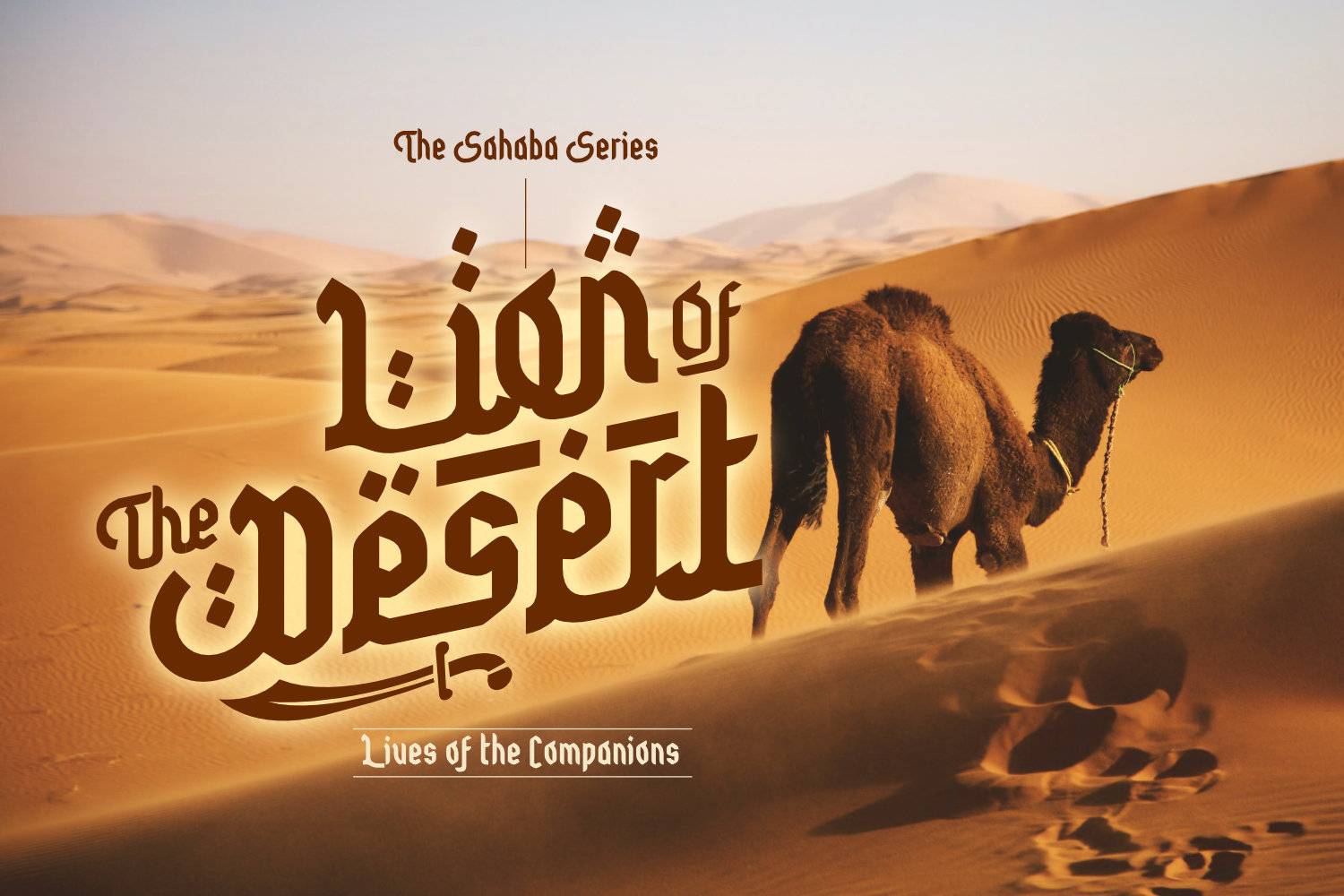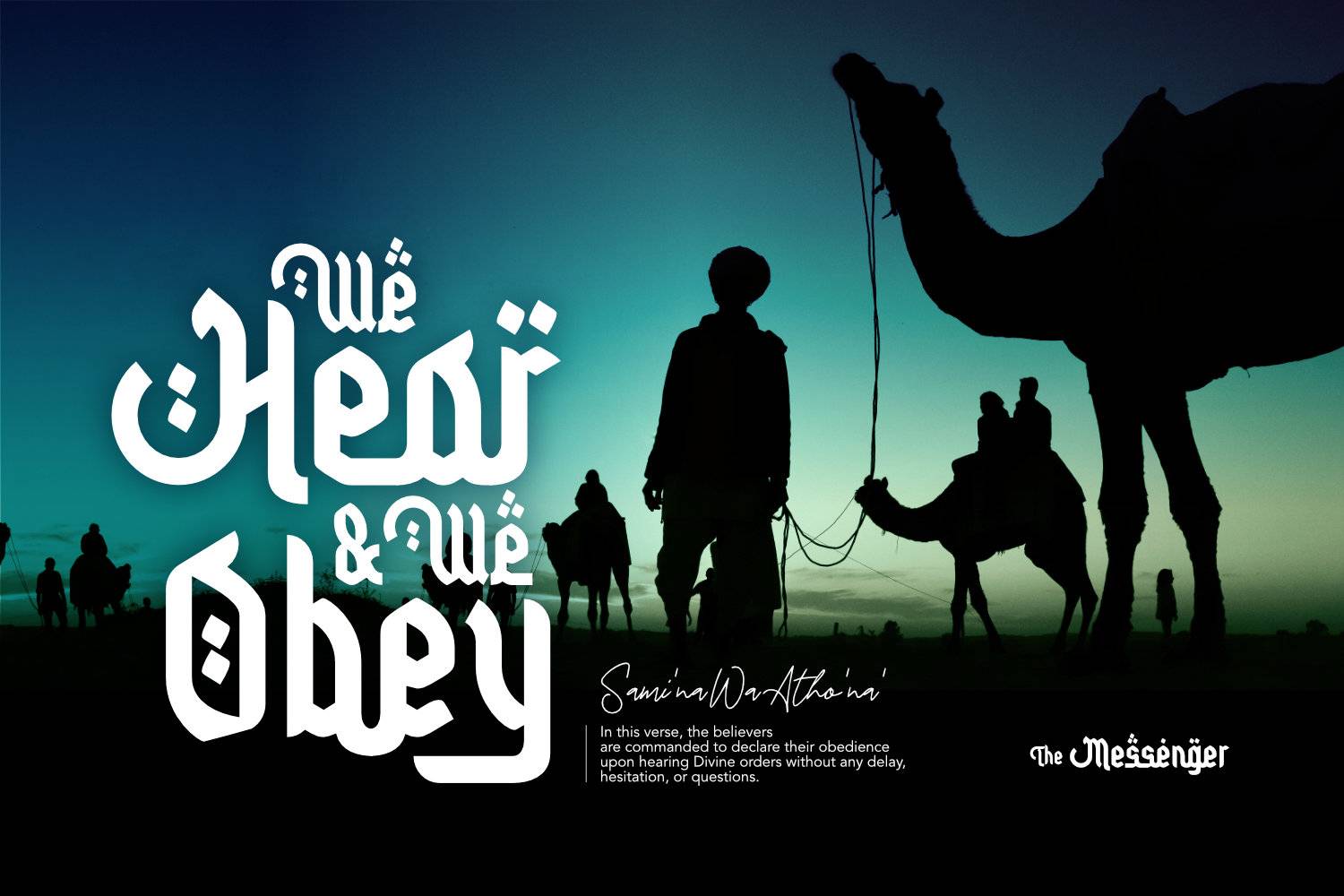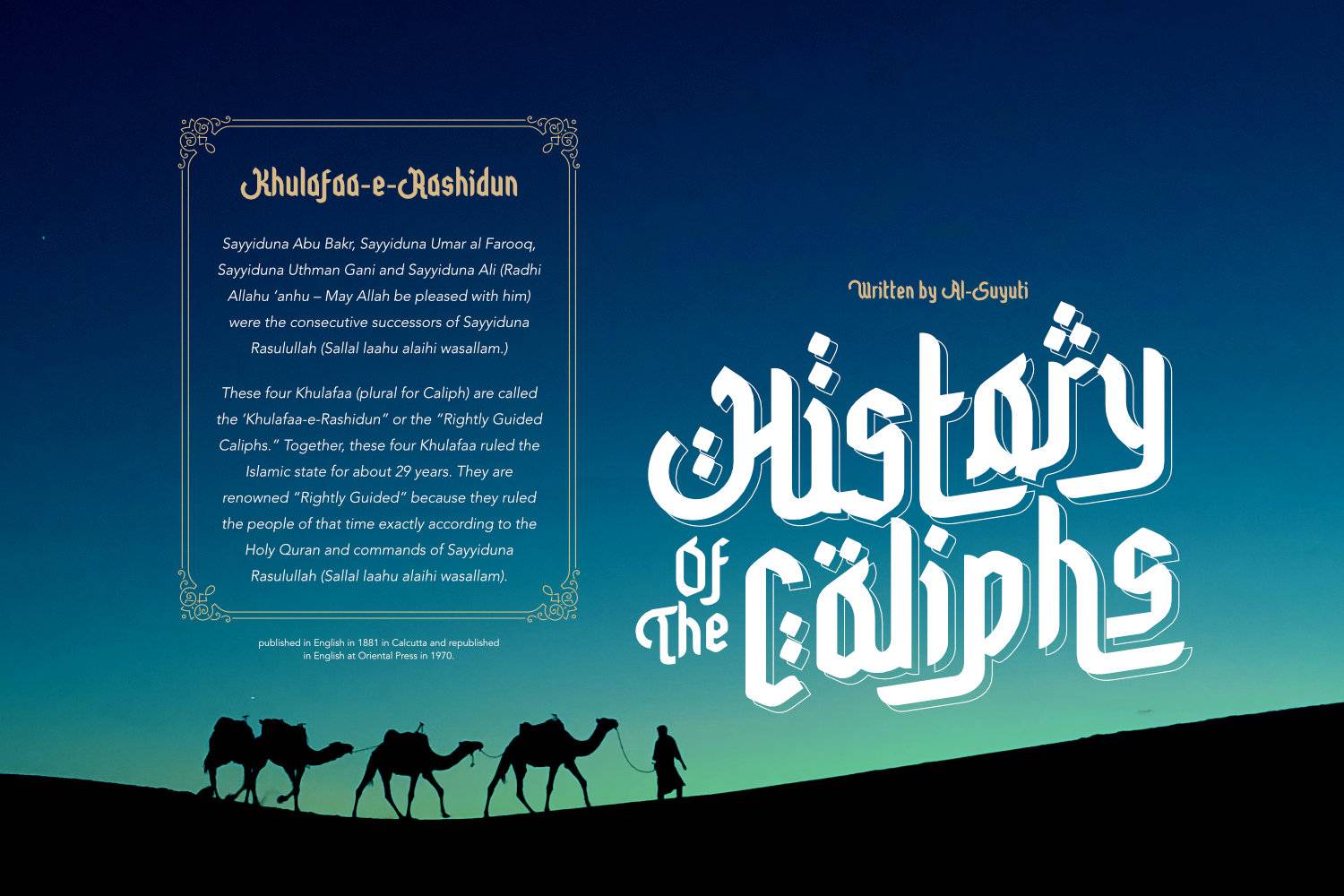
Seribu Bulan is a distinctive serif font blending gothic and blackletter influences with a contemporary twist, characterized by its tall, condensed letterforms and medium-high contrast strokes. With its sharp, angular details and unique curved terminals, this font exudes a bold, dramatic personality that suits creative branding, headlines, and display use where a strong, vintage-inspired statement is desired. Ideal for logos, posters, or editorial designs, Seribu Bulan delivers a memorable and artistic touch that commands attention.
Seribu Bulan Font
About Seribu Bulan Font